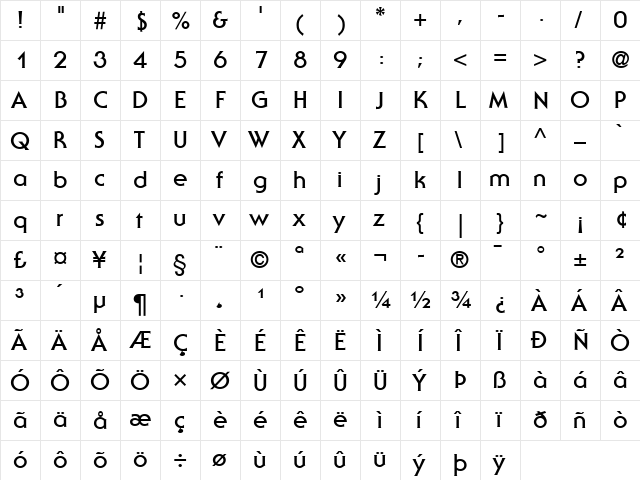
SerifGothic LT Bold
Design Context for SerifGothic LT Typeface
SerifGothic LT carries the refined structure of traditional serif typography, with bracketed terminals and considered proportions that communicate credibility and craft. Its bold stroke weight gives it real presence on the page.